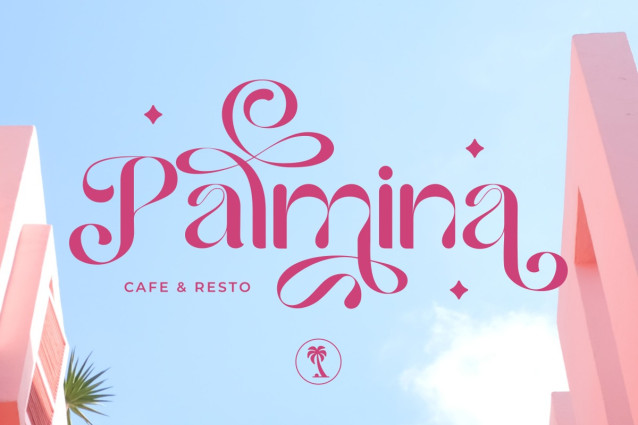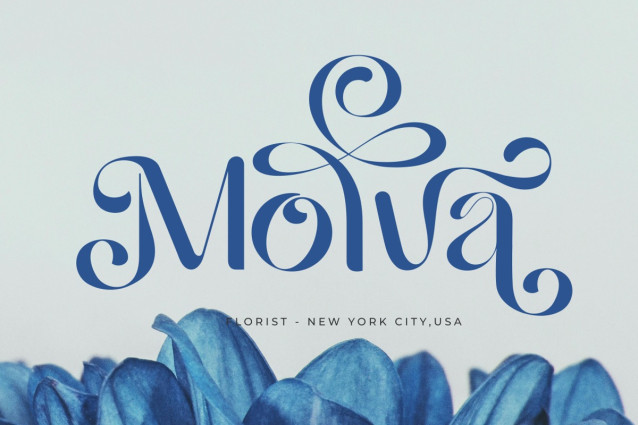
Believe Stronger Font
Believe Stronger Font is a beautifully crafted sans serif font that blends clean modern lines with graceful curves, creating a timeless and versatile typeface. Designed to elevate any creative project, this font comes with stylish alternates and elegant ligatures that allow you to customize your typography and add a unique personal touch.
Perfect for branding, editorial design, packaging, logos, and social media graphics, Believe Stronger offers both simplicity and sophistication. Its balanced letterforms make it ideal for both headlines and body text, while the alternate characters open endless possibilities for creative layouts.
Bring strength and beauty to your designs with Believe Stronger – where modern elegance meets expressive versatility.